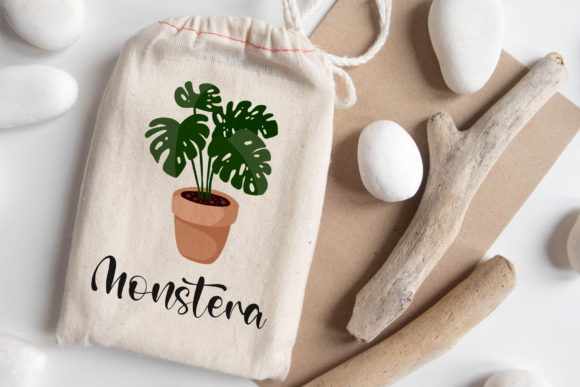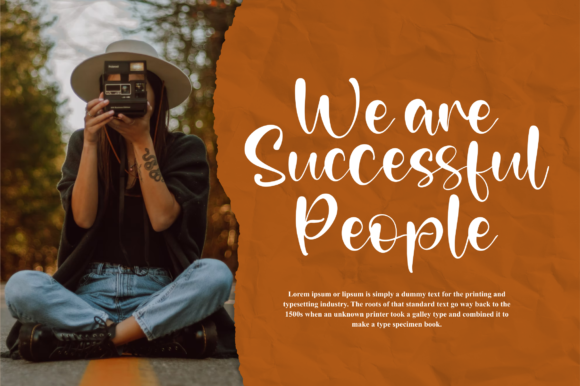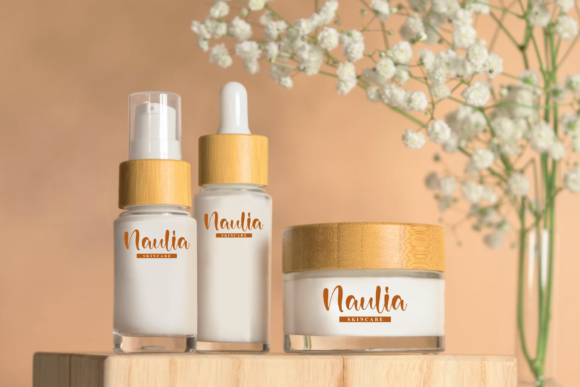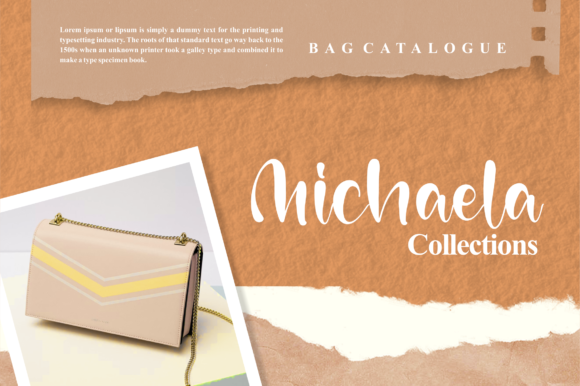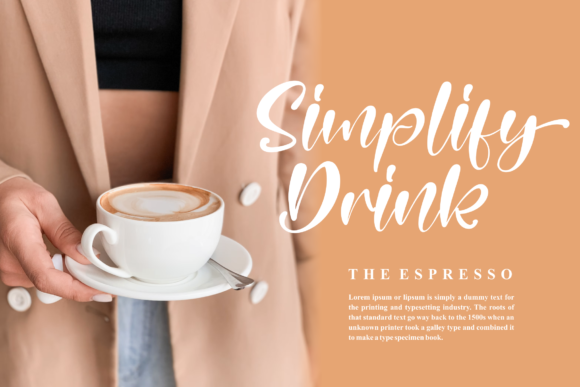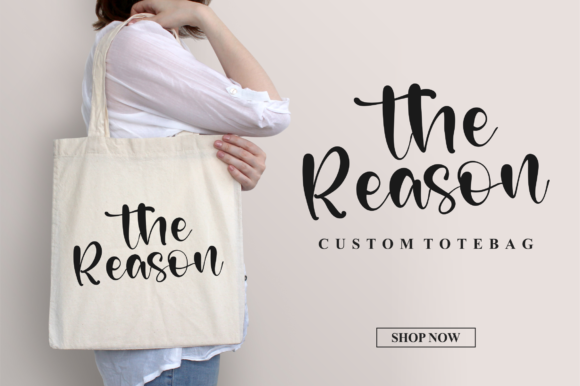
Discover the Elegance of Dasmeeta Salmah Font: Elevate Your Designs with this Beautiful Script Font
Are you a designer or crafter looking for a font that can add a touch of elegance and sophistication to your projects? Look no further than the Dasmeeta Salmah Font. This beautiful script font is perfect for a wide range of applications, from logos and branding projects to homeware designs, product packaging, and more.
What is Dasmeeta Salmah Font?
Dasmeeta Salmah Font is a stunning script font that features elegant and flowing lines, making it perfect for designs that require a touch of sophistication. The font is designed to be highly versatile, making it suitable for a wide range of projects, including:
- Logos and branding projects
- Homeware designs
- Product packaging
- Mugs and ceramics
- Quotes and posters
- Shopping bags and textiles
- T-shirts and apparel
- Book covers and stationery
Why Choose Dasmeeta Salmah Font?
There are many reasons why Dasmeeta Salmah Font is an excellent choice for designers and crafters. Here are just a few:
- Elegant and sophisticated: The font’s elegant lines and flowing script make it perfect for designs that require a touch of sophistication.
- Highly versatile: The font can be used for a wide range of projects, from logos and branding to homeware designs and product packaging.
- Easy to read: Despite its elegant and cursive nature, Dasmeeta Salmah Font is highly legible, making it perfect for designs that require a clear and easy-to-read font.
- Unique and distinctive: The font’s unique style and flair make it stand out from more traditional fonts, adding a touch of personality to your designs.
How to Use Dasmeeta Salmah Font in Your Designs
Using Dasmeeta Salmah Font in your designs is easy. Here are a few tips to get you started:
- Pair it with a bold font: Dasmeeta Salmah Font looks stunning when paired with a bold, sans-serif font. Try using it in combination with a font like Arial Black or Impact to create a striking contrast.
- Use it for headings and titles: The font’s elegant and cursive nature makes it perfect for headings and titles. Use it to add a touch of sophistication to your designs.
- Experiment with colors and textures: Dasmeeta Salmah Font looks stunning in a range of colors and textures. Experiment with different colors and textures to find the perfect combination for your design.
Here are a few additional tips for designers and crafters looking to get the most out of Dasmeeta Salmah Font:
- Use it to create a cohesive brand identity: Dasmeeta Salmah Font is perfect for creating a cohesive brand identity. Use it across all your branding materials, from logos and business cards to website headers and social media graphics.
- Experiment with different design styles: The font’s versatility makes it perfect for a range of design styles, from modern and minimalist to vintage and distressed.
- Don’t be afraid to get creative: Dasmeeta Salmah Font is a versatile font that can be used in a range of creative ways. Don’t be afraid to experiment and try new things.
Dasmeeta Salmah Font is a beautiful script font that is perfect for designers and crafters looking to add a touch of elegance and sophistication to their projects. With its elegant lines, flowing script, and highly versatile nature, it’s the perfect choice for a wide range of applications. Whether you’re creating logos and branding materials, homeware designs, or product packaging, Dasmeeta Salmah Font is sure to elevate your designs and help you stand out from the crowd.